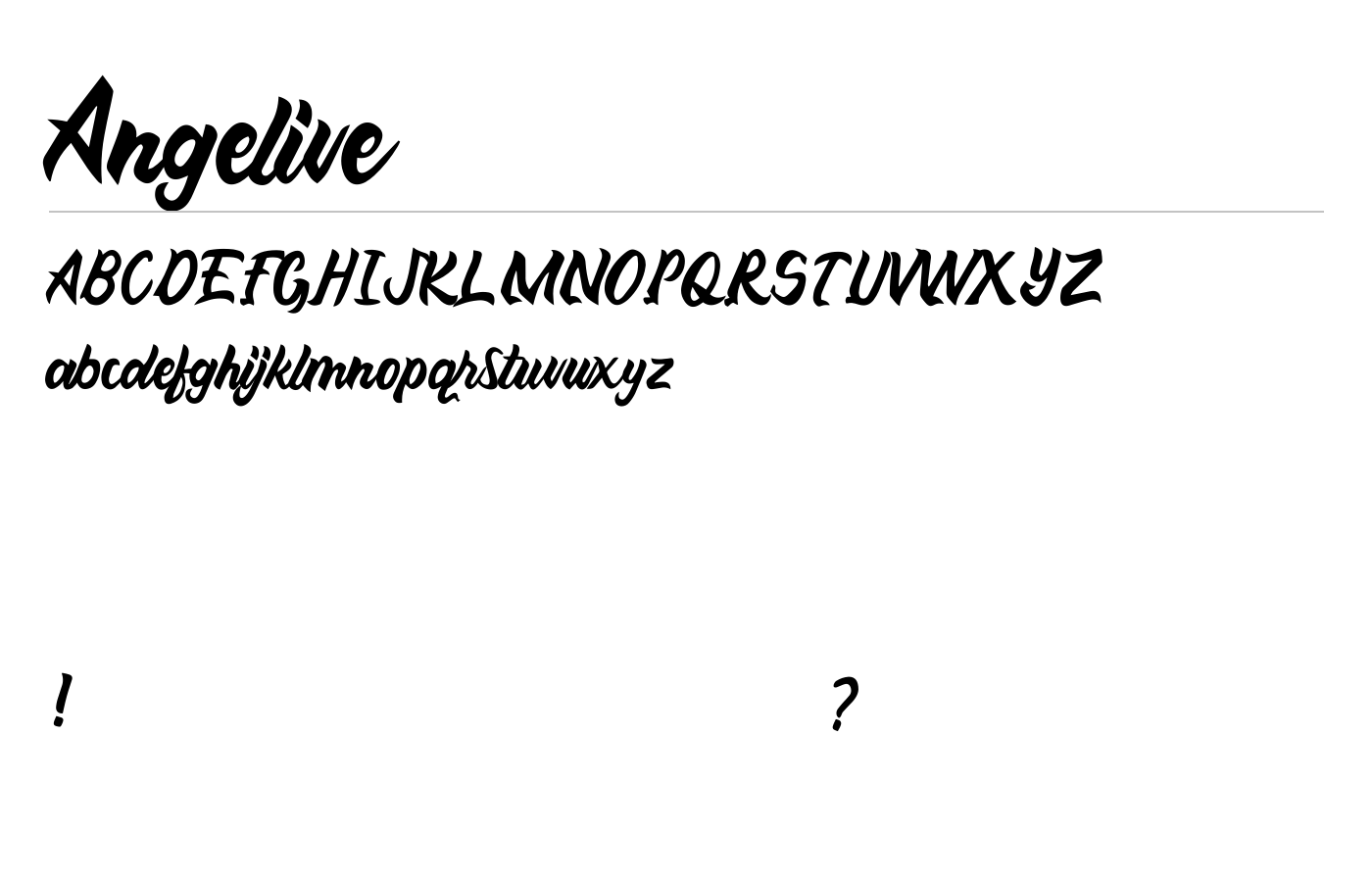
Angelive is a bold and dynamic script font with a lively brush style that combines strong contrasts and smooth curves, giving it an energetic yet elegant look. Its expressive letterforms work beautifully for eye-catching headlines, logos, and creative branding where a modern and artistic touch is needed. Ideal for projects that want to convey confidence and personality, Angelive stands out with its vibrant and stylish flair.
Angelive Font
About Angelive Font
| Font family | Angelive Font |
| Designer | Kruweks Studio |